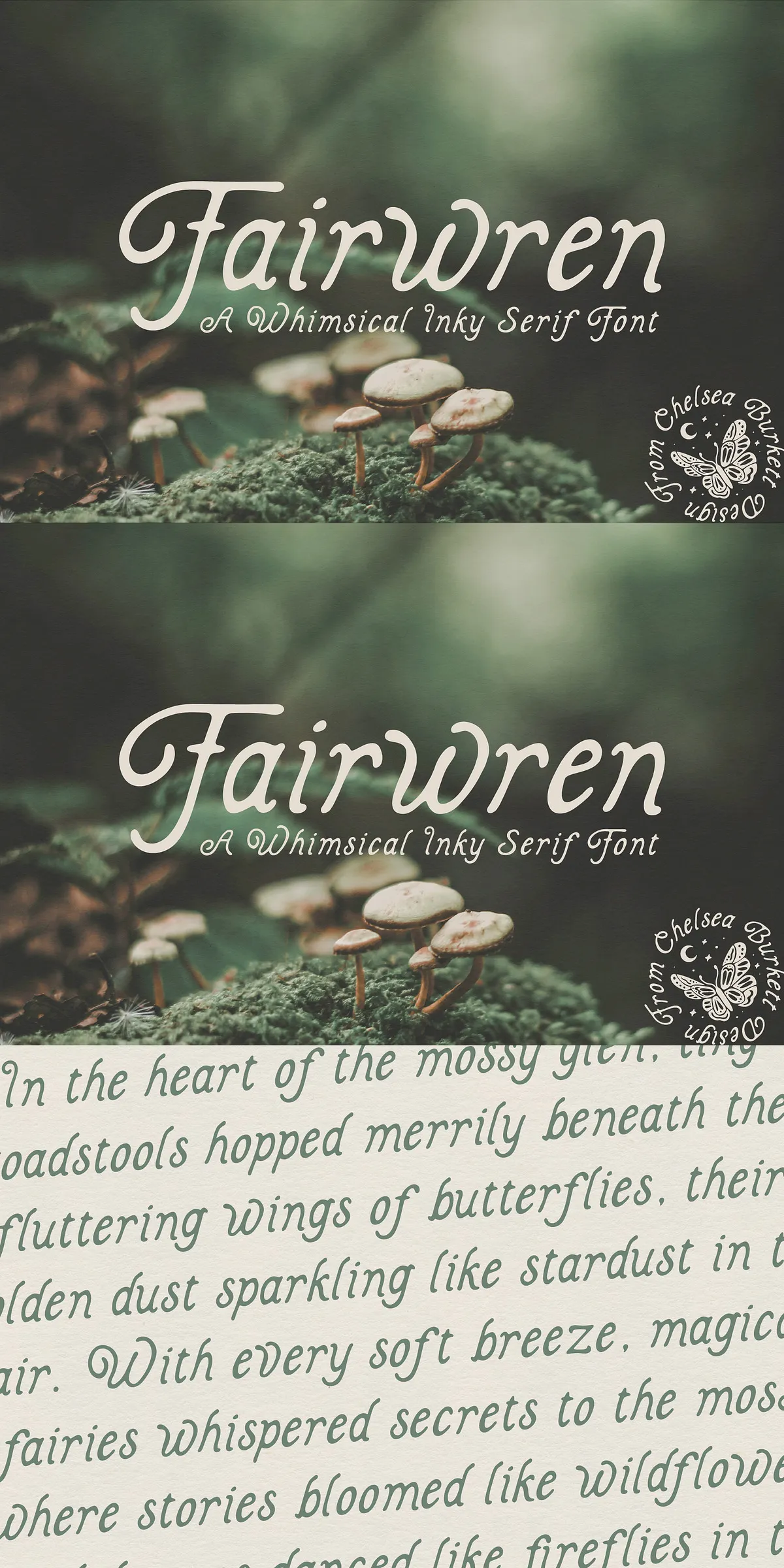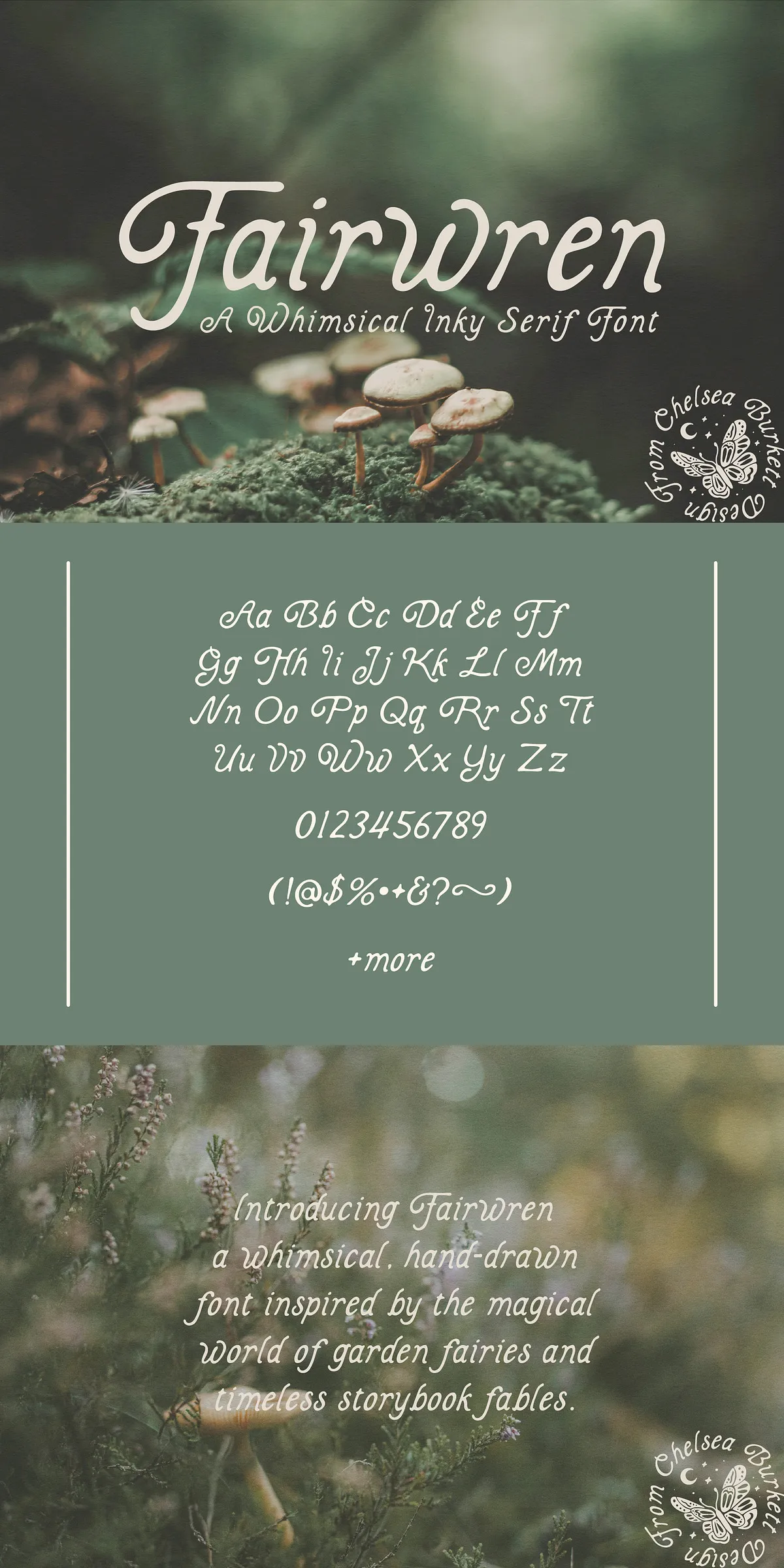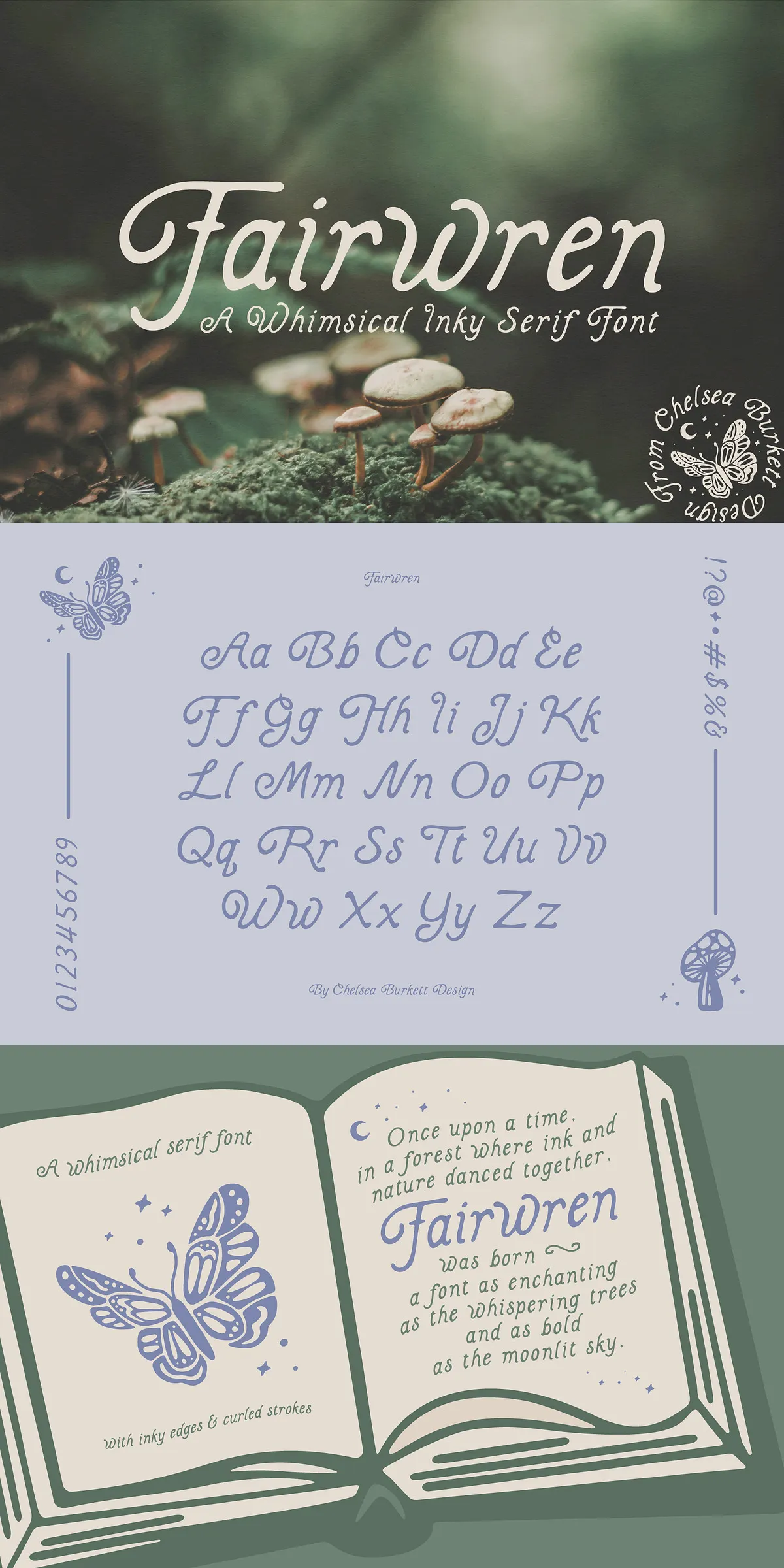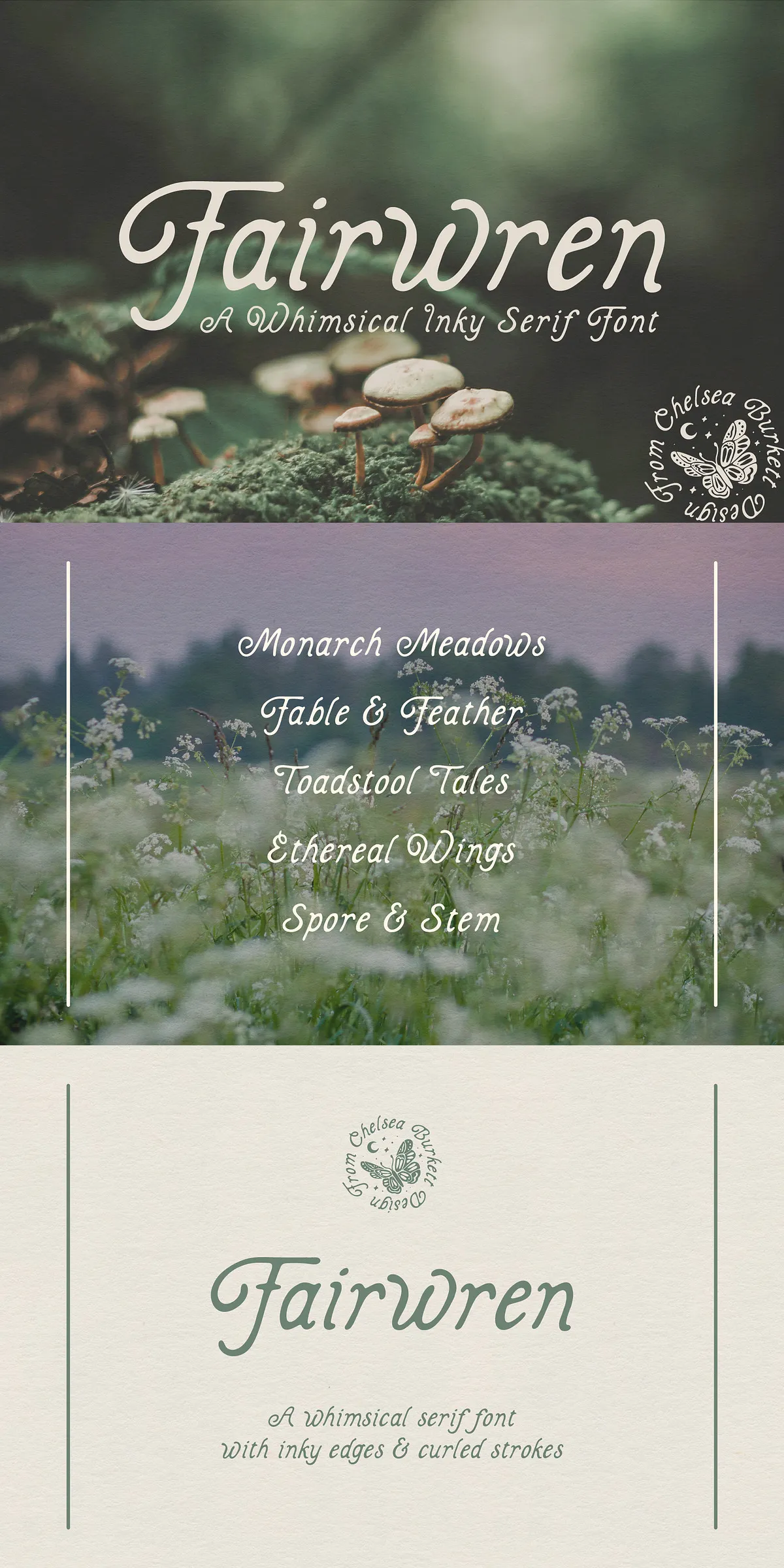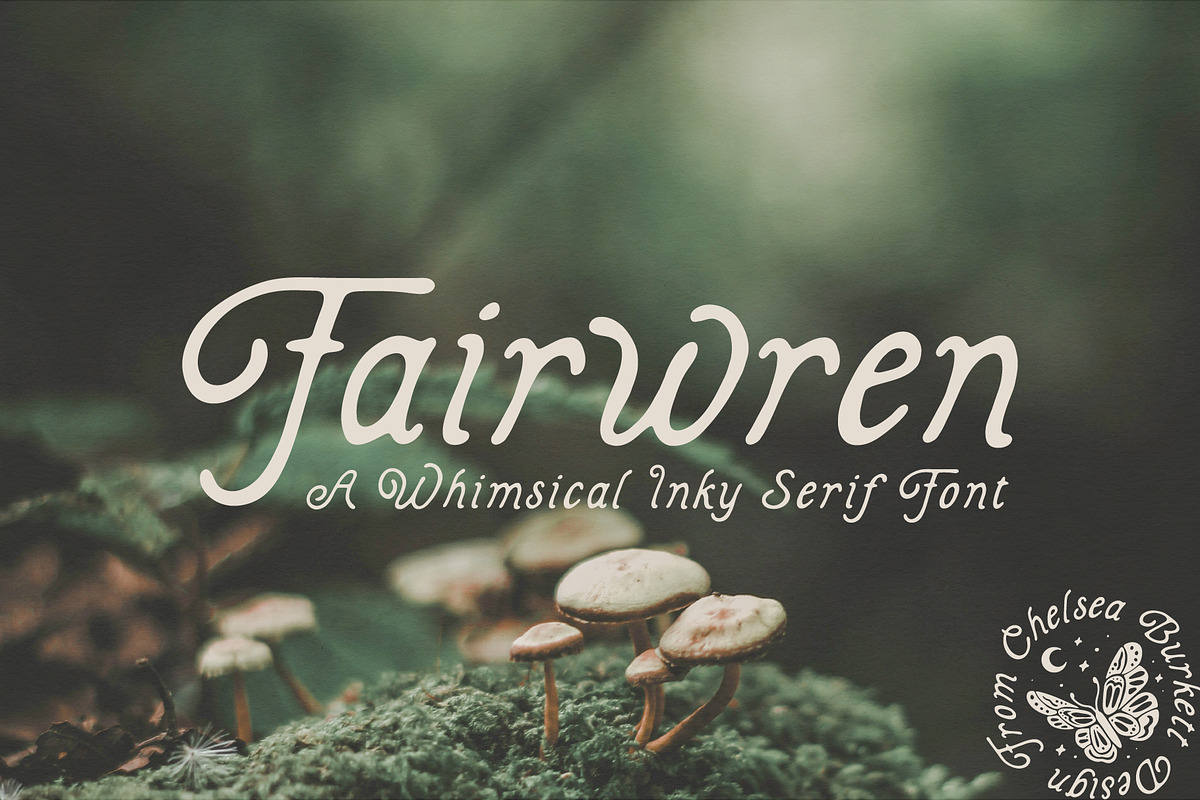
Unleash the magic of the wild with Fairwren Font — a captivating inky serif that fuses the spontaneity of hand-drawn artistry with the strength and clarity of bold, expressive letterforms. This isn’t just a font. It’s a living whisper from the forest, a delicate brushstroke from a fairy’s quill, and a bold declaration in one perfect design.
Embrace the Organic: Hand-Drawn Beauty with Unmistakable Soul
Fairwren was crafted to feel alive. Its inky, irregular edges mimic the natural movement of pen, brush, and ink — no two strokes are perfectly identical. The result? A letterform that breathes, sways, and dances across the page. Every curve is gently rounded, every stroke subtly varied, capturing the quiet beauty of moss-covered stones, dappled sunlight through leaves, and the soft flutter of moth wings at twilight.
This isn’t digital precision — it’s **emotional authenticity**. You’re not typing. You’re drawing. And your design gains depth, warmth, and character simply by using Fairwren.
Design with Heart: The Perfect Balance of Delicate and Bold
While Fairwren exudes delicate fluidity, it never sacrifices readability or presence. The sturdy core of each letterform ensures it holds its ground in headlines, logos, and large-scale designs. Whether you’re crafting a wedding invitation that feels like a storybook, or designing a natural skincare brand that whispers “earth-first,” Fairwren delivers both charm and impact.
- Graceful Hand-Drawn Aesthetic — Captures the organic flow of ink on paper, ideal for cottagecore, fantasy, and artisan branding.
- Bold Yet Gentle Strokes — Combines soft curves with solid structure for visual stability and creative freedom.
- Full Character Set — Includes uppercase and lowercase letters, numerals, punctuation, and standard spacing — ready for any project.
Where Fairwren Comes Alive: Creative Applications
Fairwren thrives in visual narratives that value story, mood, and emotion. Here’s where it transforms your projects into unforgettable experiences:
- Brand Identity & Packaging — Perfect for eco-friendly brands, herbal teas, artisanal soaps, and boutique fashion lines that celebrate nature and craftsmanship.
- Invitations & Stationery — Elevate weddings, baby showers, and garden parties with a timeless, storybook charm.
- Blog Headers & Social Media Graphics — Stand out on Instagram, Pinterest, and blogs with handcrafted visuals that resonate emotionally.
- Poster Art & Print Design — Ideal for event flyers, book covers, and art prints that want to whisper magic, not shout.
- Cottagecore & Fantasy Branding — Infuse your projects with dreamlike visuals that feel authentic, not forced.
Dare to Be Different: Make Your Work Feel Real
In a world of sleek, sterile fonts, Fairwren dares to be raw, warm, and alive. It invites you to step back from the machine and create like a human artist. Let your text carry emotion. Let your design tell a story. Let every project feel handcrafted, even if it’s digital.